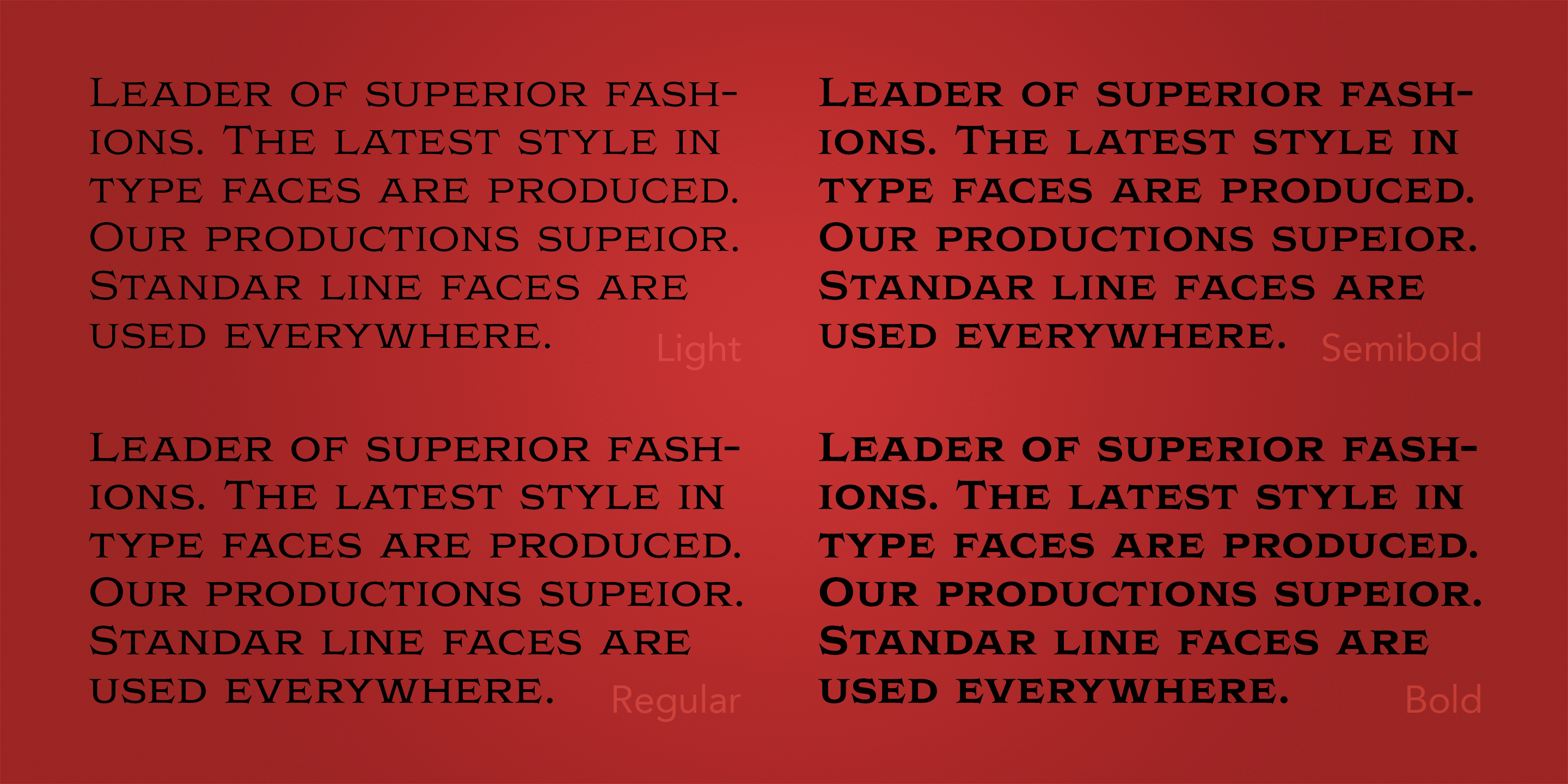
Griffon Font is a powerful and commanding typeface that embodies strength, ancient majesty, and a touch of mythical intrigue. This distinctive font is perfectly suited for projects that demand a bold, impactful, and perhaps even an epic aesthetic. Imagine Griffon Font gracing the titles of a fantasy adventure novel, adding a formidable presence to gaming interfaces, or enhancing the branding for historical reenactment groups. It's also ideal for crafting unique logos for craft breweries, designing striking visuals for adventure sports events, or lending an authentic, powerful feel to designs inspired by heraldry and medieval lore. Its robust forms and often sharp details make it superb for impactful headings, decorative text, and any design that aims to convey a sense of enduring power or legendary narrative.
What makes Griffon Font so exciting is its unique ability to combine classic, almost calligraphic strength with a distinct, sometimes angular or textured character. It possesses an inherent gravitas and sense of history, as if each letter has been carved from stone or forged in metal, bringing a sense of ancient power and dramatic flair to your text. This font isn't just about conveying words; it's about evoking a feeling—a noble quest, a valiant battle, or the mysteries of a forgotten age. Its bold presence and unique design elements create a rich visual experience that instantly commands attention and leaves a lasting impression, making it truly captivating for projects that seek to inspire awe.
Griffon Font typically focuses on its dramatic display characteristics, often available in a standard regular weight, possibly with a few stylistic alternatives that enhance its powerful or decorative nature. While it may not feature an extensive range of weights like a traditional text font, its strength lies in the singular power and consistent design of its primary form. Its strong strokes and often unique serifs or terminals ensure that its distinctive appearance is maintained across various applications, making it highly effective for impactful headlines, expressive logos, and designs where a strong, artistic, and memorable visual impact is desired.